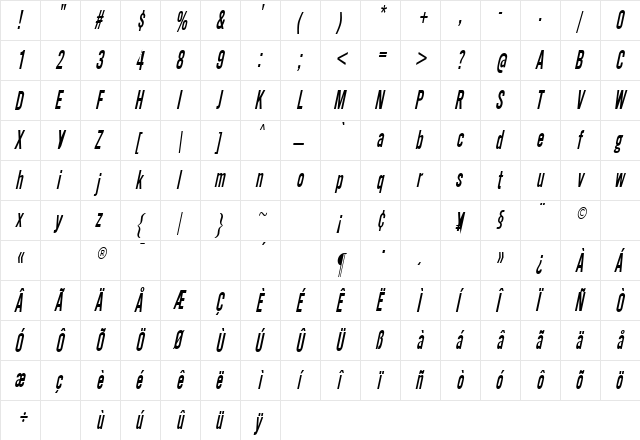
SimpleTypeCondensed Italic Font Preview
Design Context for SimpleTypeCondensed Typeface
SimpleTypeCondensed takes a measured approach to typography — its balanced proportions and neutral character make it a reliable workhorse for both digital and print work. The slanted form adds forward momentum and visual energy. The condensed width makes it efficient for tight spaces without sacrificing legibility.